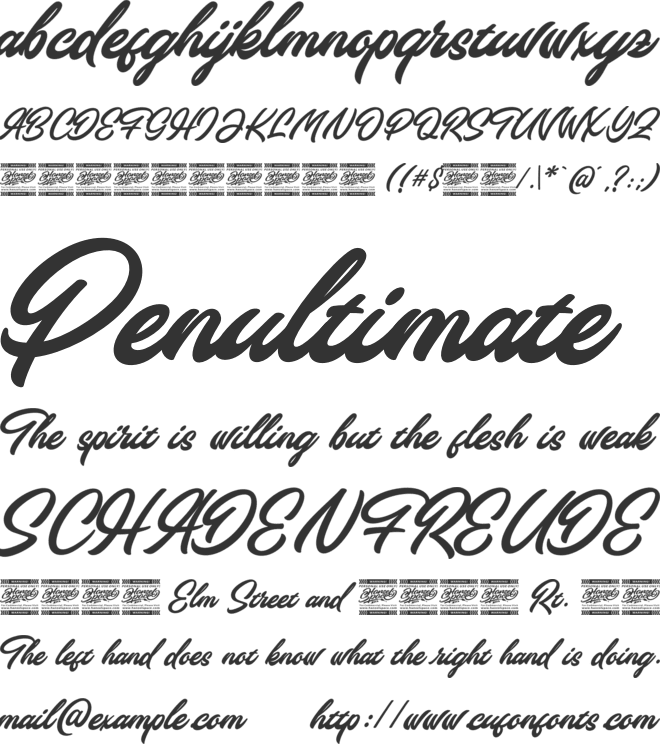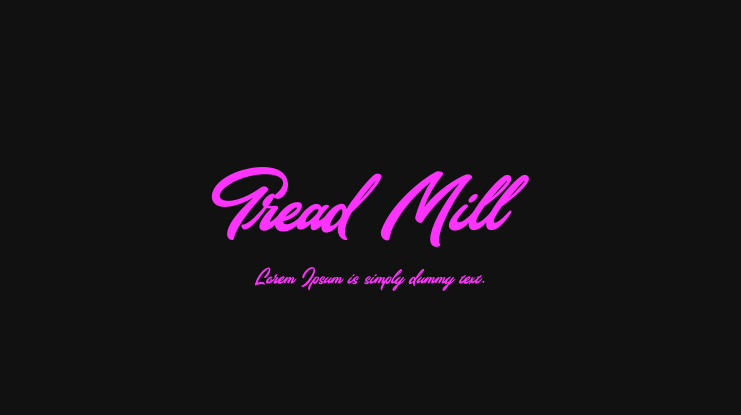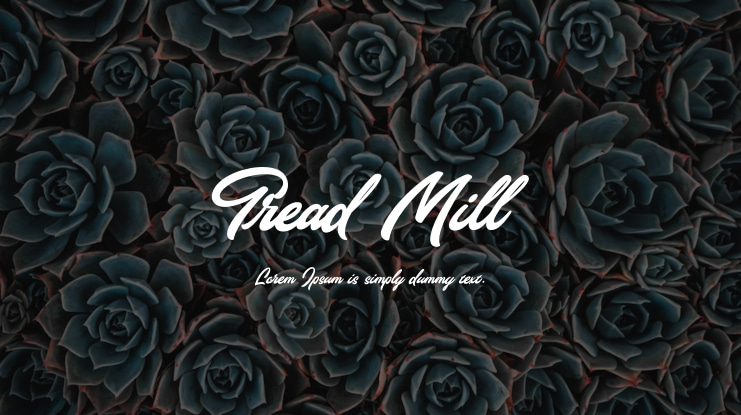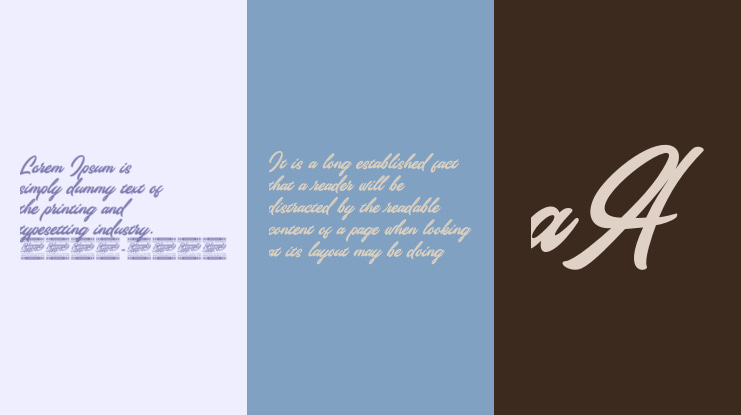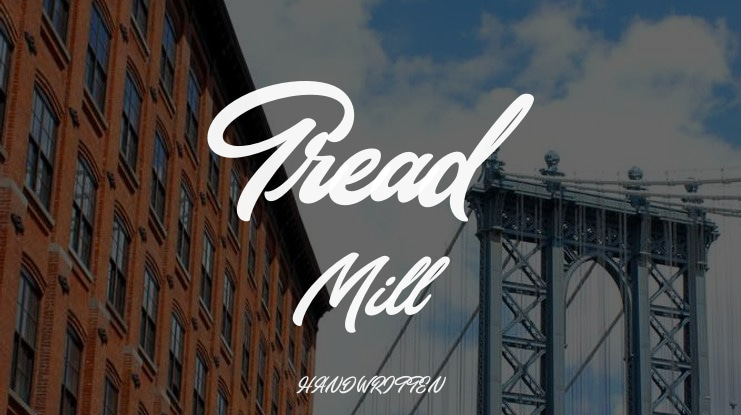
Are you seeking a modern, trendy script font? Do you want to create something that stands out and inspires endless creativity, imagination, and fun? Look no further; we have the best choice for you.
**Tread Mill - A Lettering Script Font** Tread Mill Script is a Lettering Font with a touch of vintage look and feel. The swashes make this font look fantastic for lettering, which you can create in a heartbeat! This type of font is perfect for applications such as logos, headlines, signage, and various formal forms like invitations, labels, magazines, books, greeting/wedding cards, packaging, fashion, makeup, stationery, novels, or any type of advertising purpose.
**Features:** - Full set of standard alphabet and punctuation - Multilingual Characters (ÁÂÄÀÅÃÆÇÐÉÊËÈÍÎÏÌÑÓÔÖÒØÕÚÛÜÙẂŴẄẀÝŶŸỲ áâäàåãæçðéêëèíîïìñóôöòøõœúûüùẃŵẅẁýŷÿỳ€£¥)